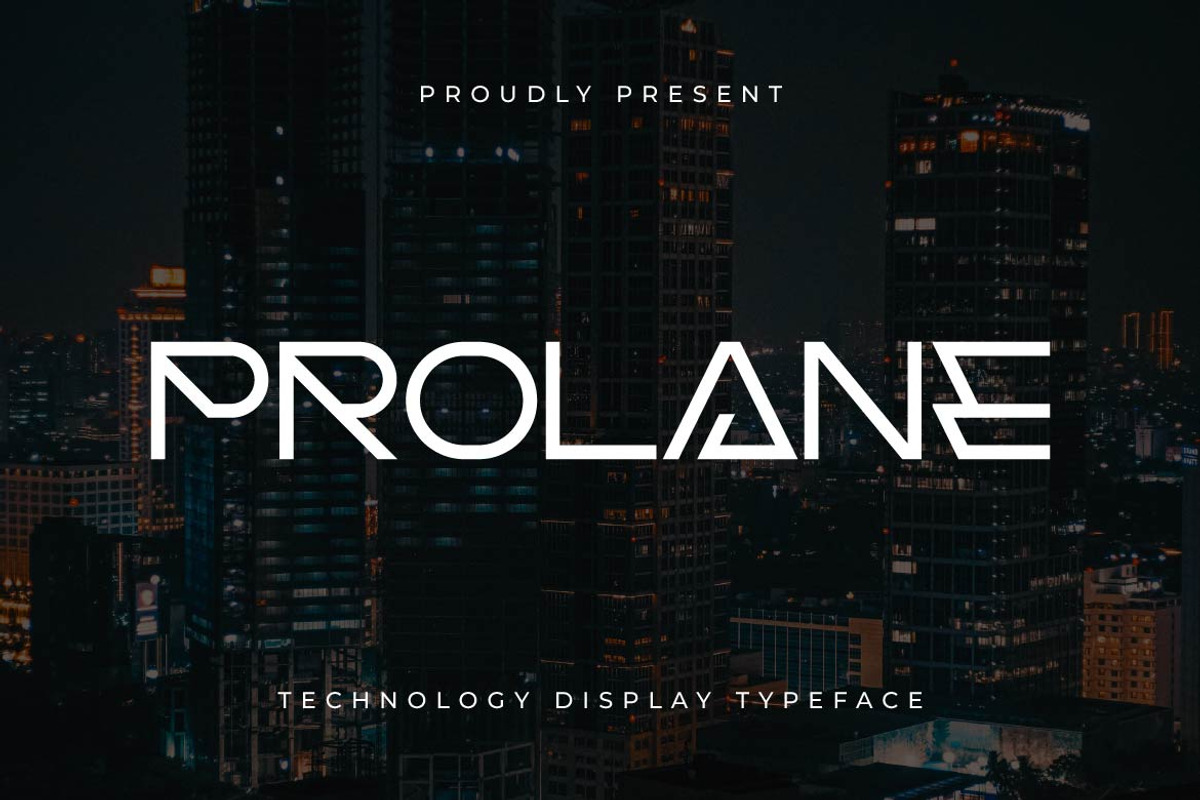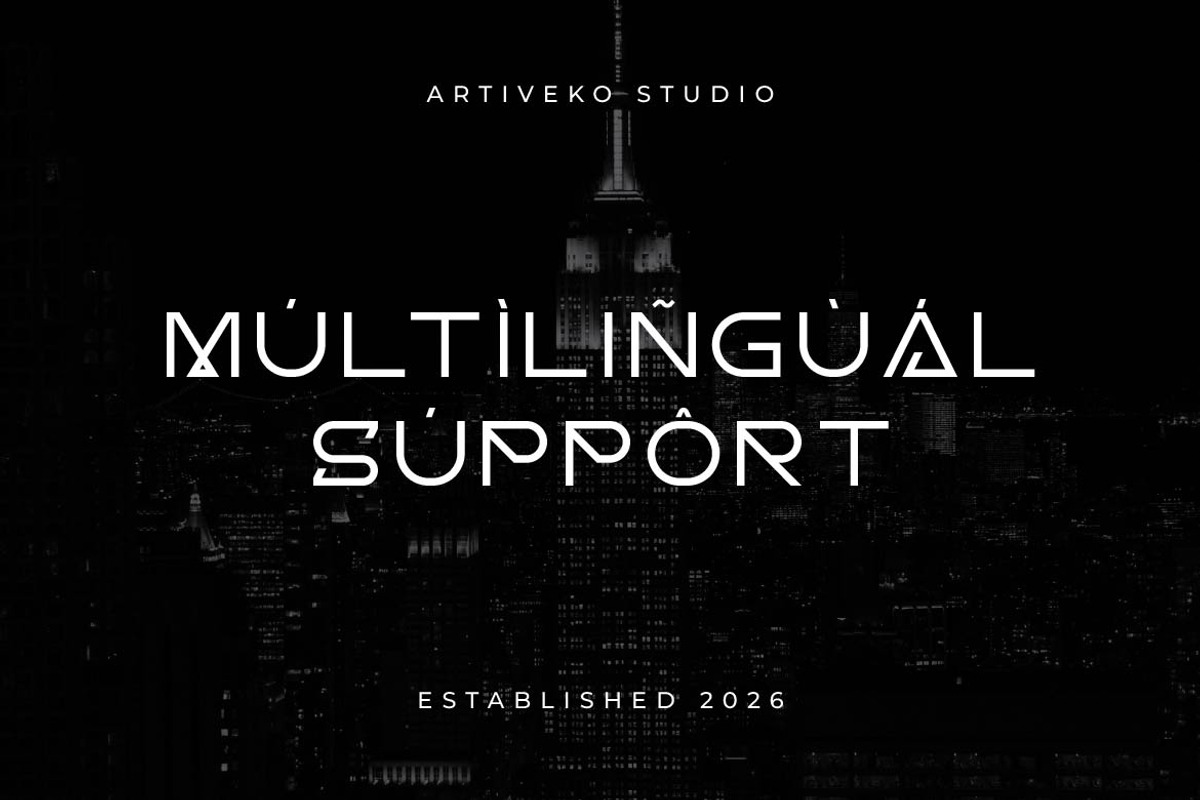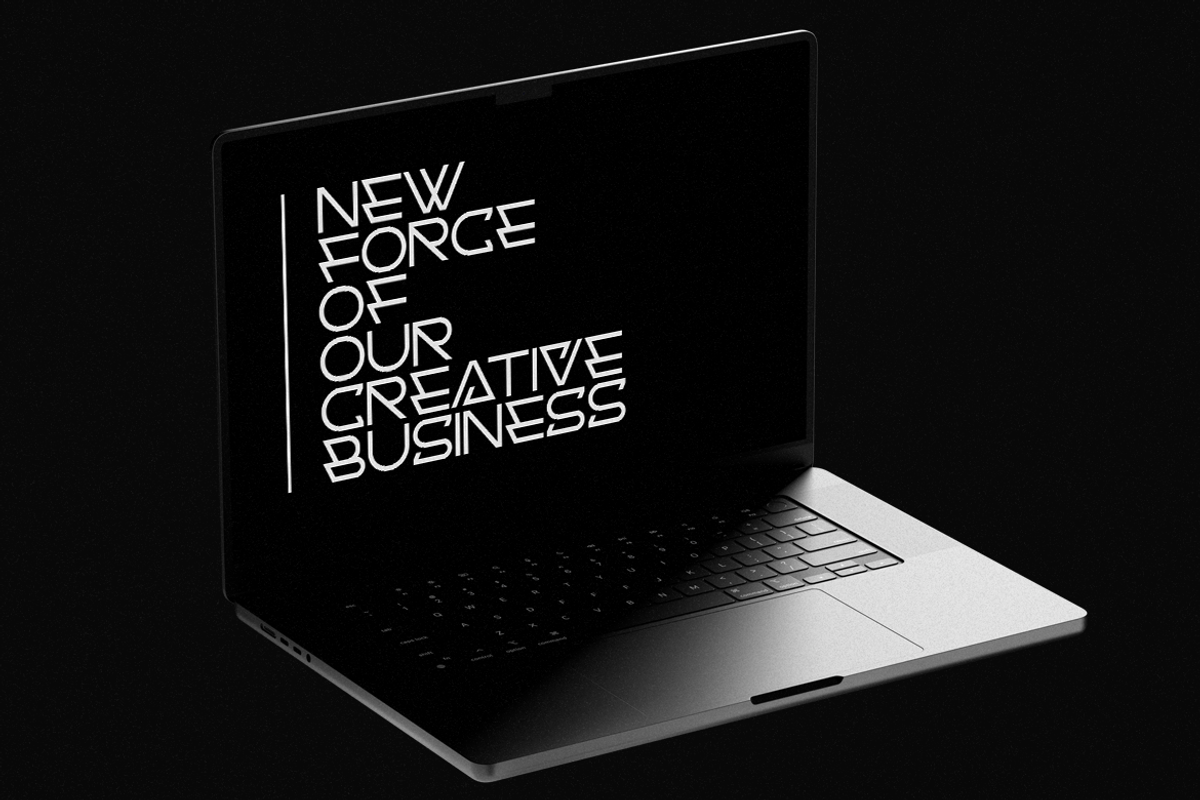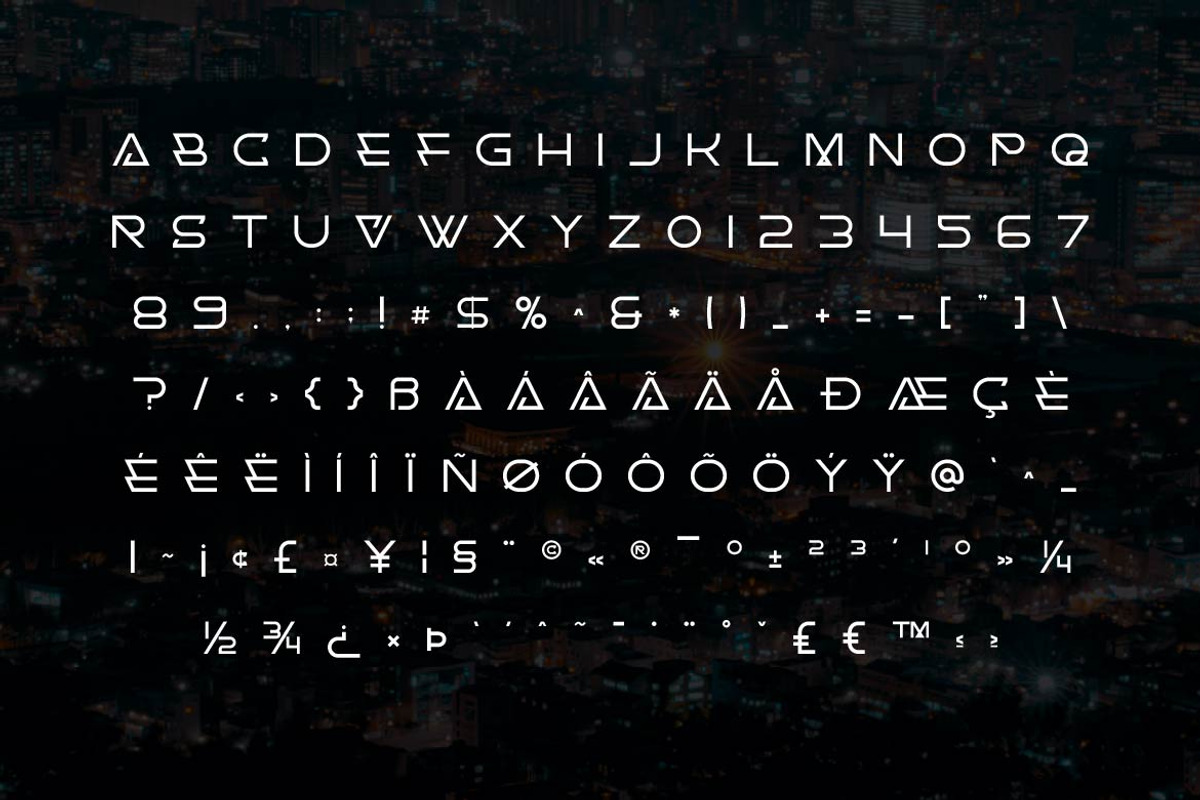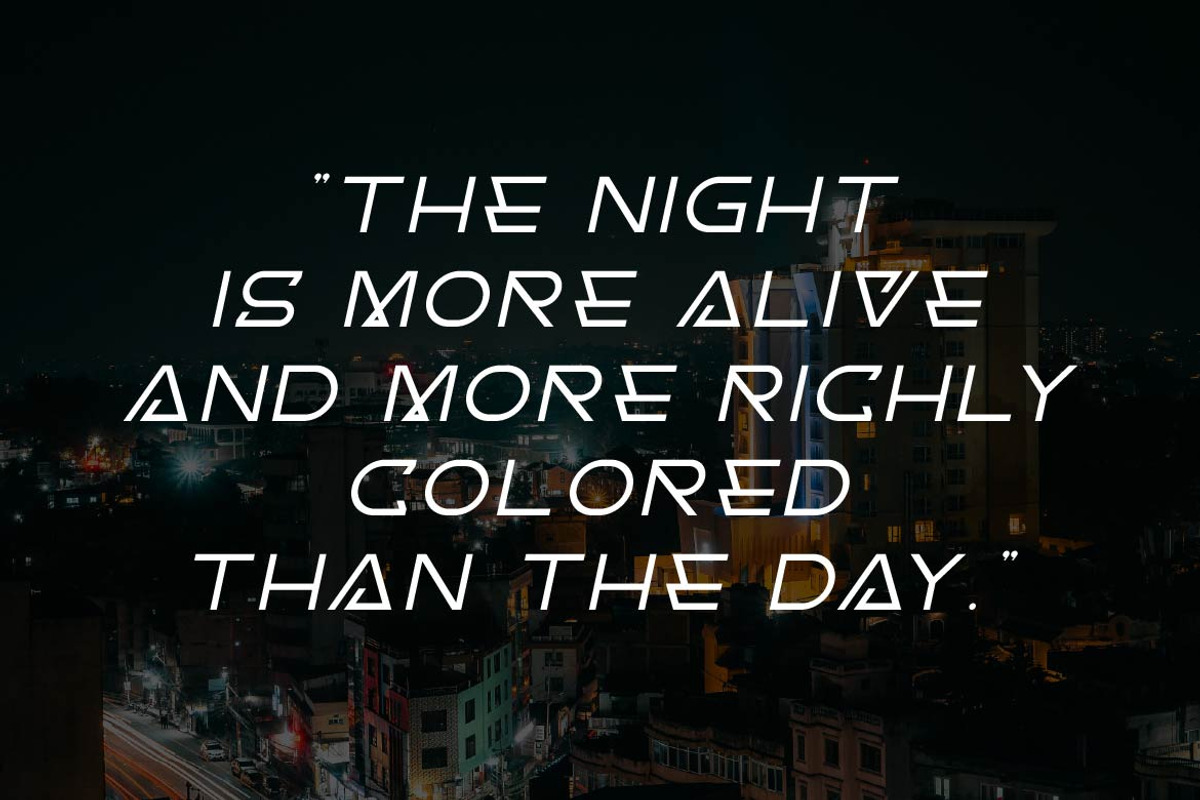
Prolane – Geometric Display
Prolane is a geometric technology display font designed to express precision, innovation, and modern digital aesthetics. Built with clean geometric forms, balanced proportions, and sharp contemporary details, Prolane delivers a bold visual identity for technology-driven brands and futuristic design projects.
Ton of glyphs